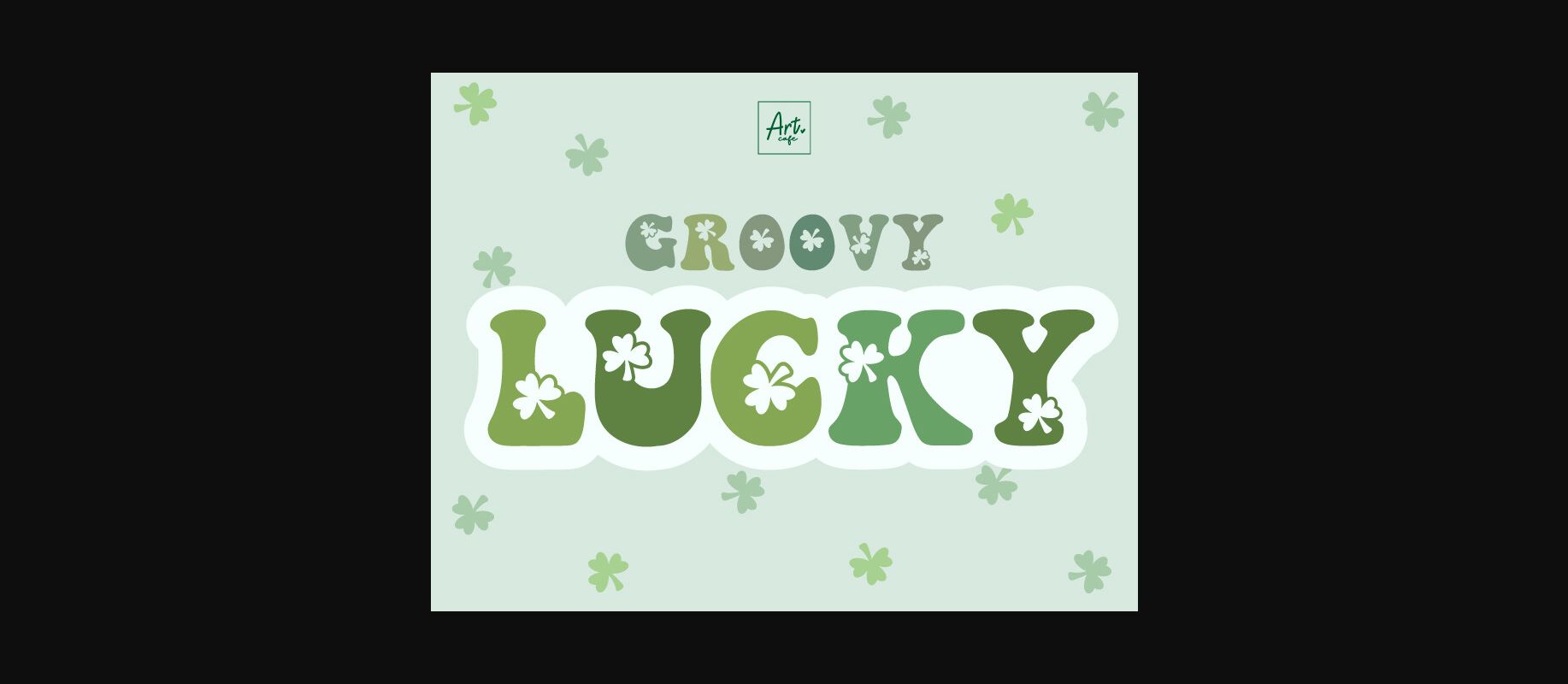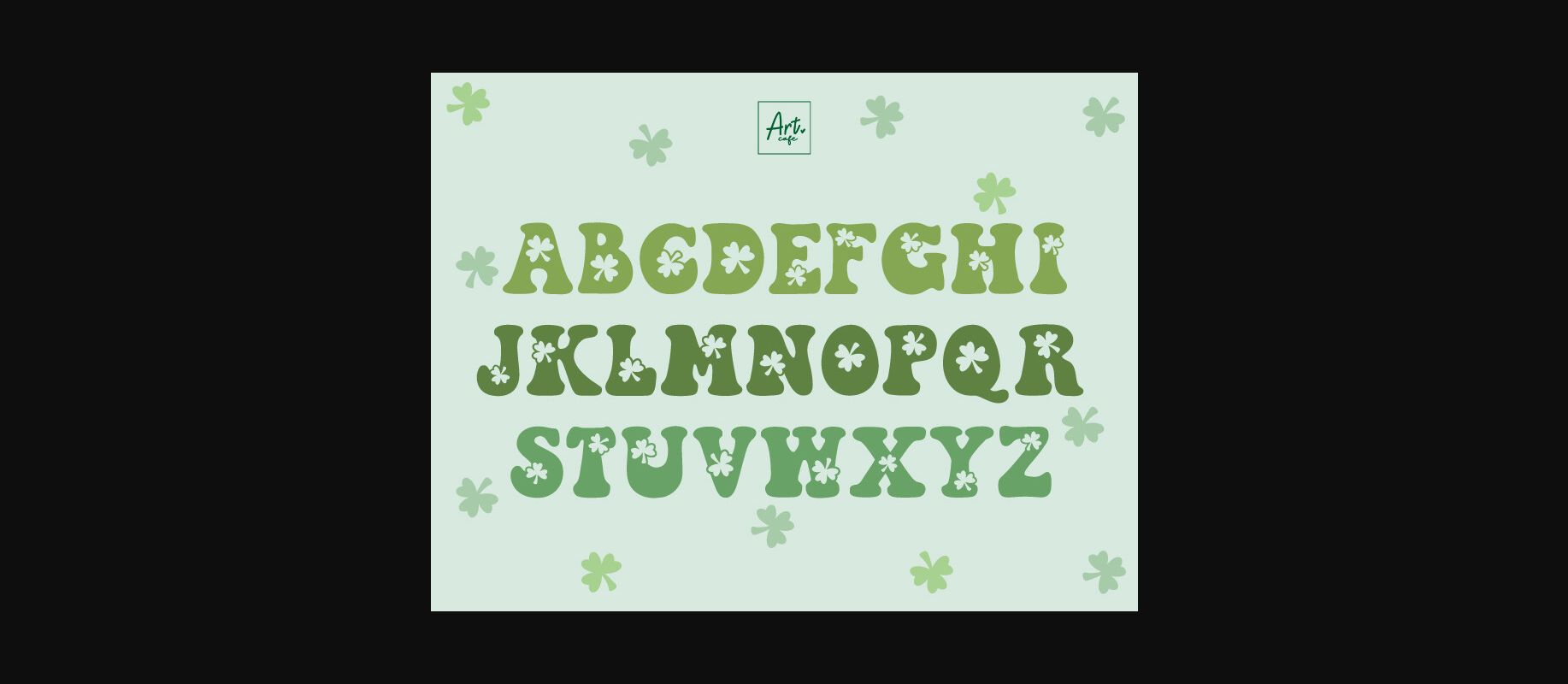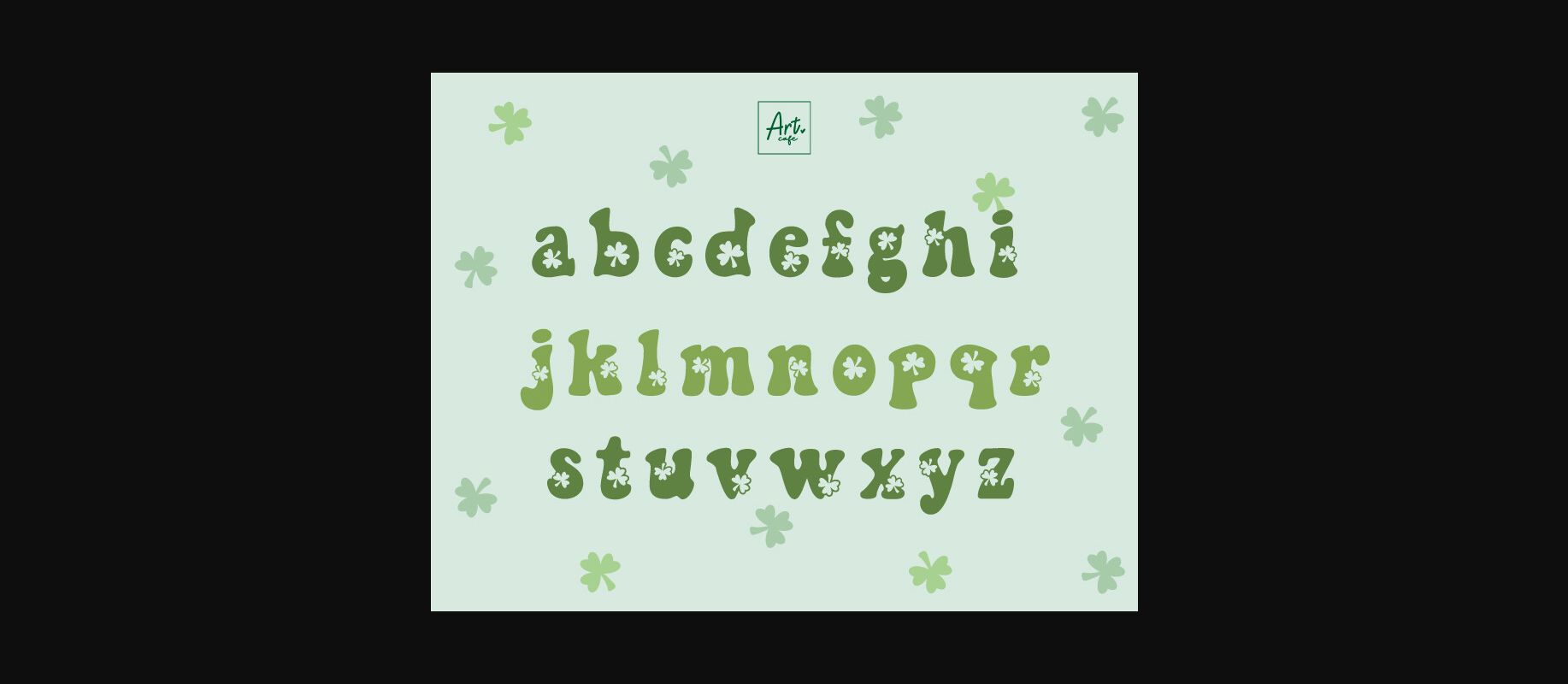
About Groovy Lucky Font
Immerse yourself in the nostalgic aura of Groovy Lucky, a distinctive retro-inspired font. Perfect for capturing the essence of St. Patrick’s Day, this idiosyncratic typeface delivers a charming vernacular imbued with the holiday’s festive spirit. Channel the luck of the Irish with Groovy Lucky, a font that embodies a timeless retro aesthetic.